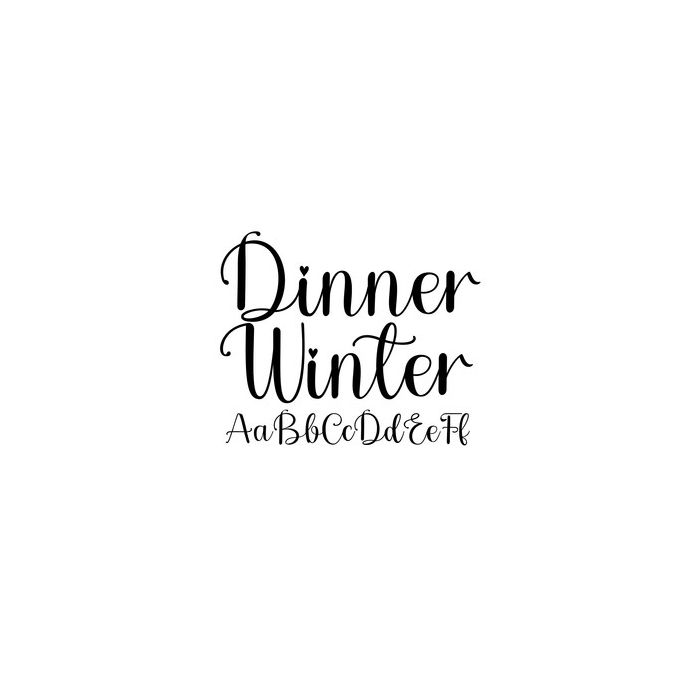
Dinner Winter Calligraphy is modern, beautiful and enchanting, one strong reason for you to get involved in your latest craft project, start something new with this font.